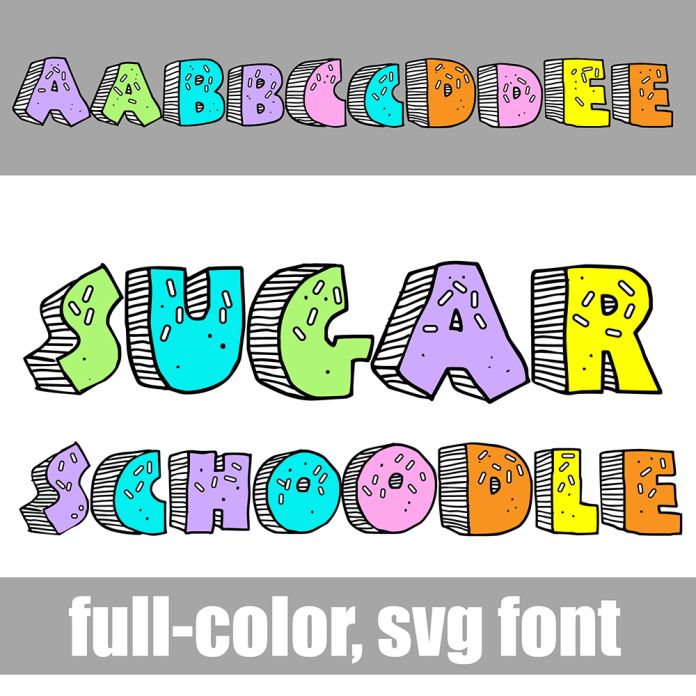
This full-color font features a crafty, 3d font in a fun color palette with sprinkles throughout. There is an alt case w/ additional colors you can access through your system or Silhouette's glyph map. This font works best for titles, displays, posters and more. Please note color fonts will show as black in non compatible programs. This font type is compatible with Silhouette Studio.